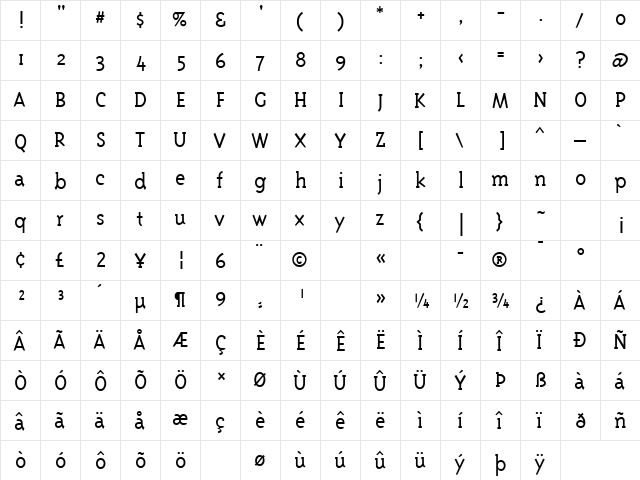
TriplexSerifLightOldstyle Regular
Design Context for TriplexSerifLightOldstyle Typeface
TriplexSerifLightOldstyle carries the refined structure of traditional serif typography, with bracketed terminals and considered proportions that communicate credibility and craft. The delicate stroke weight brings airiness and refinement to layouts.
Pro Tip: Set TriplexSerifLightOldstyle at slightly larger body copy sizes than you would a regular-weight serif to compensate for its delicate stroke contrast.